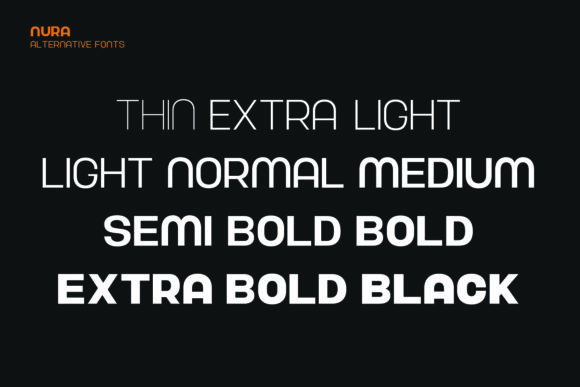
Nura Font
Nura is a simple and neat sans serif font. This beautiful and professional typeface is suitable for posters, headlines, block letters, subheadings, logo designs, branding and so much more.